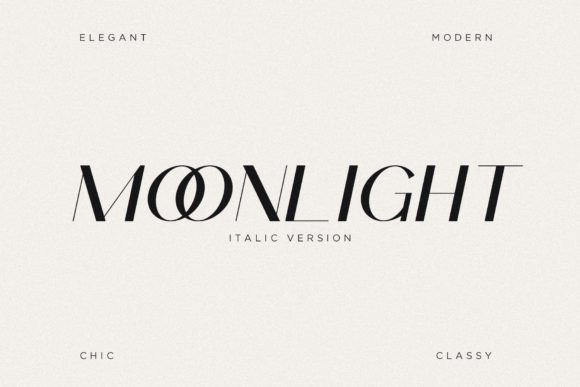
Dive into the world of timeless elegance with Moonlight Italic Font, a captivating sans serif font that embodies sophistication and charm. Step into a world where creativity and beauty intertwine, as Moonlight Italic transforms your designs into masterpieces.
Moonlight Italic is more than just a font; it's an artistic journey that captivates the essence of vintage design. Its smooth, flowing lines evoke a sense of nostalgia, while its modern twist adds a touch of contemporary flair.
With Moonlight Italic, you'll discover a font that effortlessly blends tradition and innovation. Its delicate curves and subtle details add a touch of allure to your projects, whether you're creating logos, branding materials, or eye-catching social media posts.
Embrace the versatility of Moonlight Italic. Its multilingual support opens up a world of possibilities, allowing you to connect with audiences across borders and cultures. Let the font's charm shine through in wedding invitations, elegant packaging designs, or artistic posters.
Unlock the power of expression with Moonlight Italic. Its standard ligatures add a touch of sophistication, enhancing the font's natural flow and readability. Experience the freedom to create designs that speak volumes, capturing the attention of your audience and leaving a lasting impression.